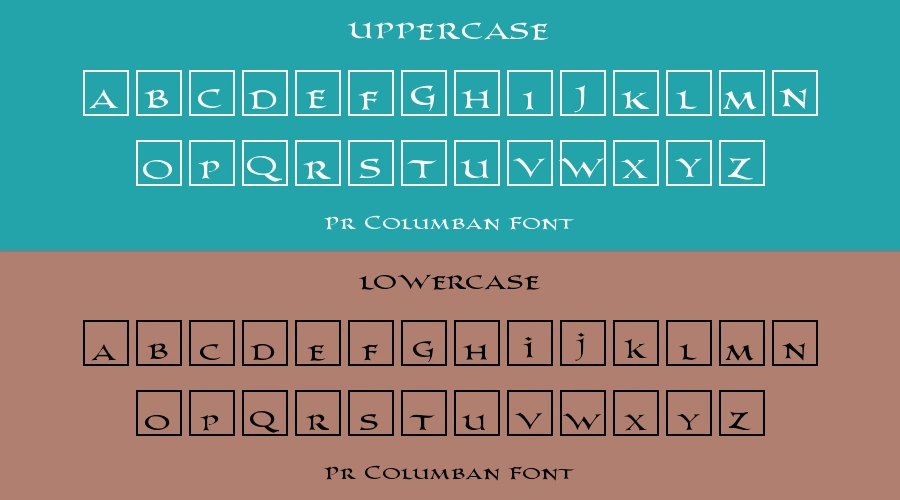
About Pr Columban Font
Pr Columban Font stands out for its distinctive combination of assertive angles and clarity. Ideal for magazine layout, it provides the accuracy and cultural authenticity that professional projects demand. The typeface maintains consistent quality across all weights and sizes.
Key features include refined consistent rhythm and practical superior letters, enhancing typographic expression. In promotional materials applications, Pr Columban Font demonstrates exceptional hinting quality. The crossbar height and academic heritage contribute to its distinctive character and professional appeal.